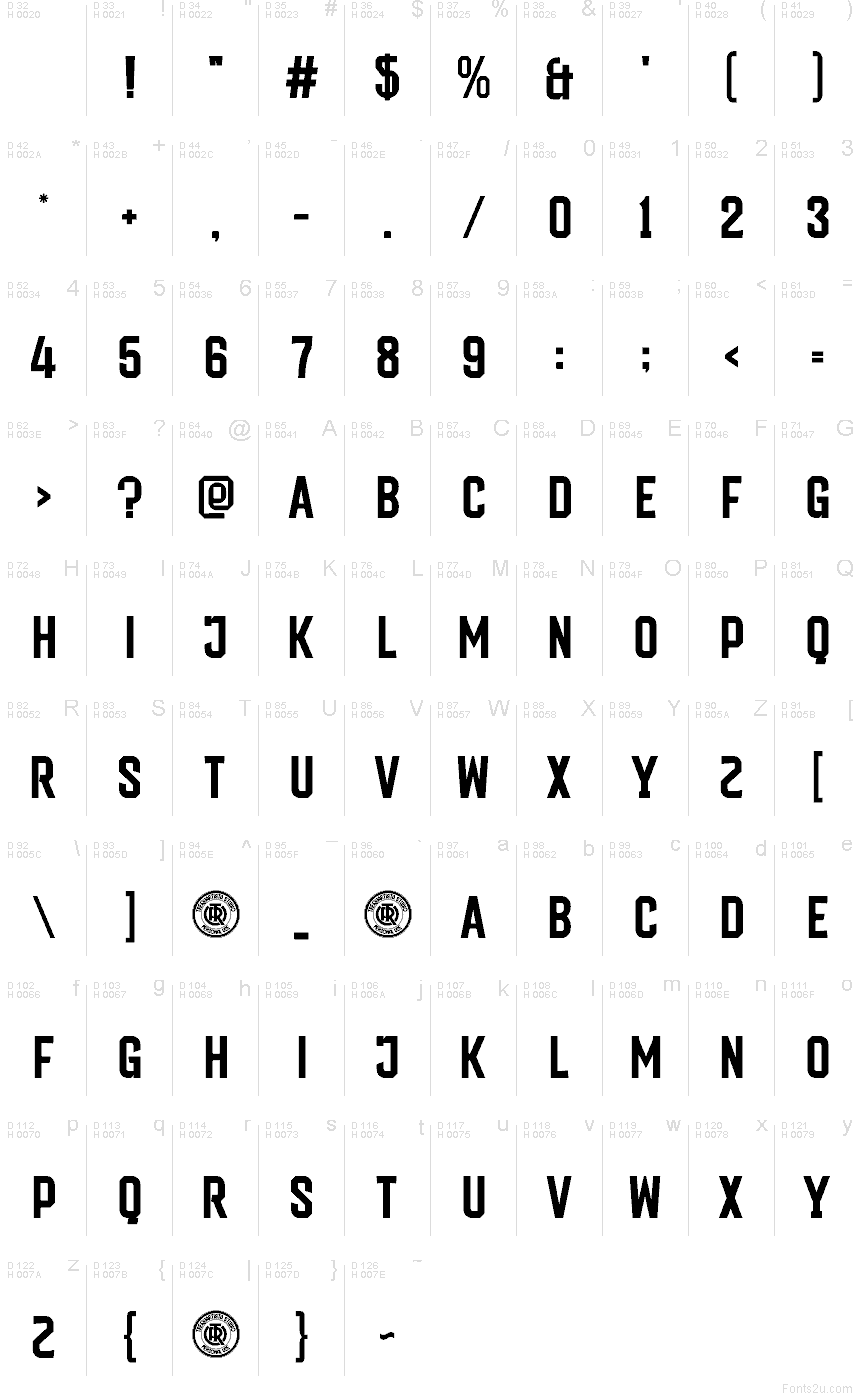
Tottenham font by Trequartista Studio is a free techno display typeface that hits hard even when space is tight. Its tall, ultra-condensed letters stack together like metal beams, with squared curves and blunt edges that feel industrial and sharp. You get big, commanding headlines without blowing up your layout, so titles stay loud while the rest of the design has room to breathe.
Using Tottenham, this free font shines on sports branding, event posters, banners, esports graphics, sci-fi book covers, and bold website hero text. The tight rhythm and rigid verticals create a strong, unified block of type that reads instantly from a distance. For longer copy, pair Tottenham with a clean, wider sans serif at smaller sizes to balance its dense, towering shapes.